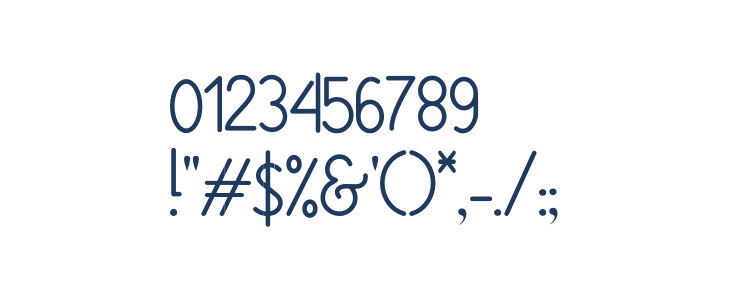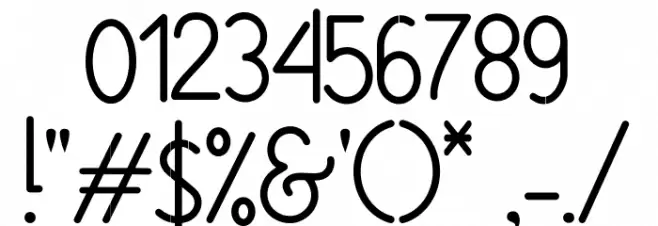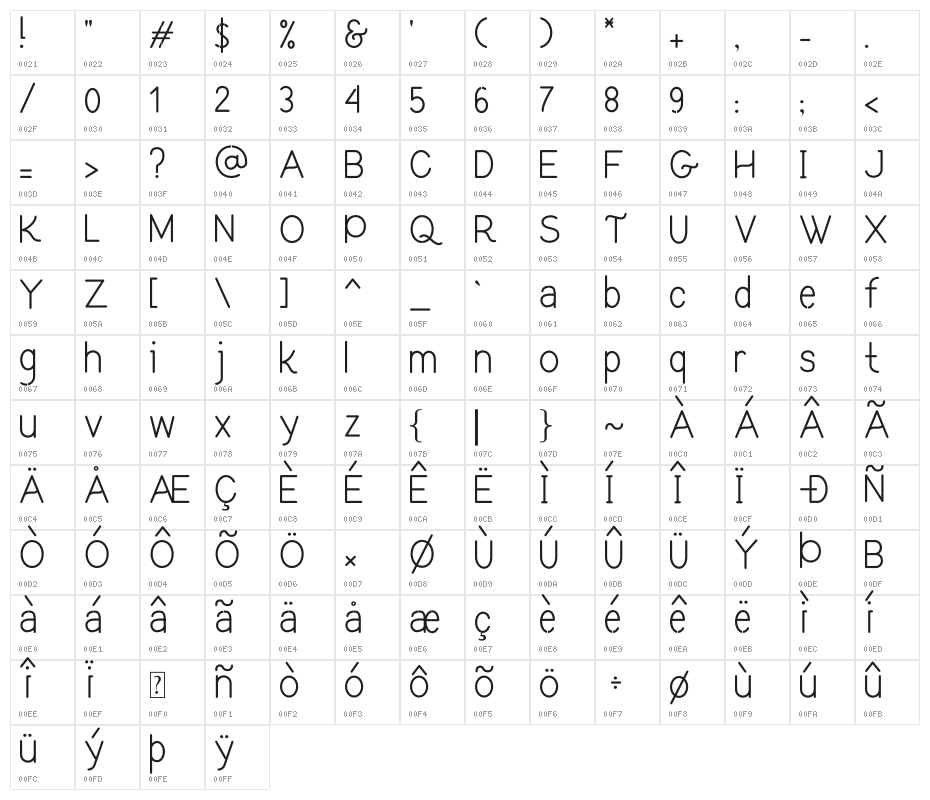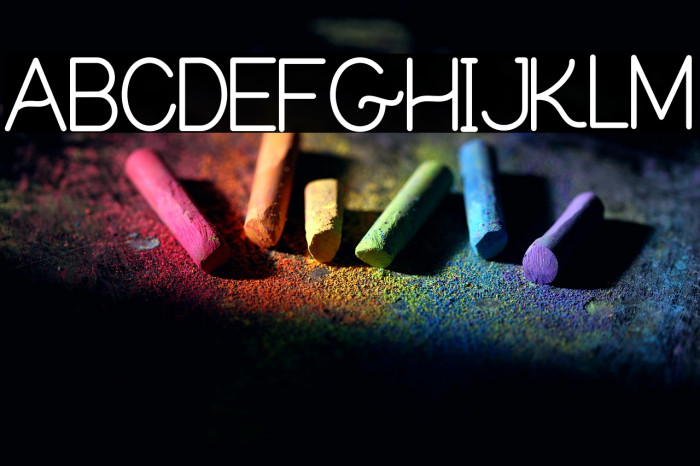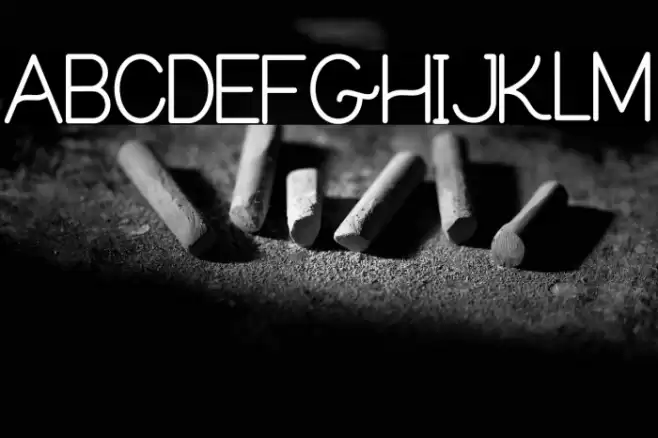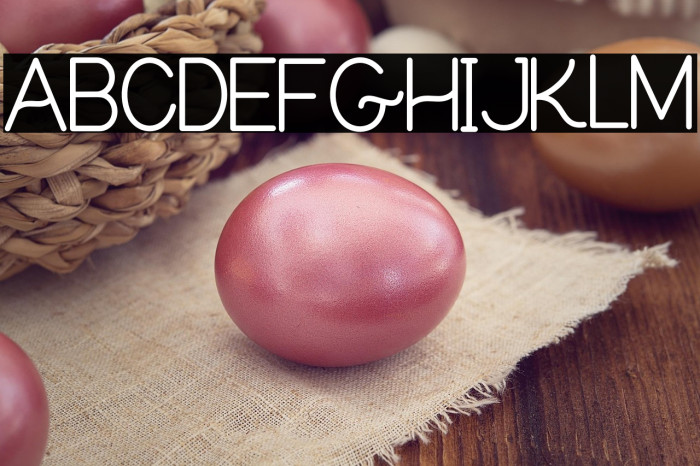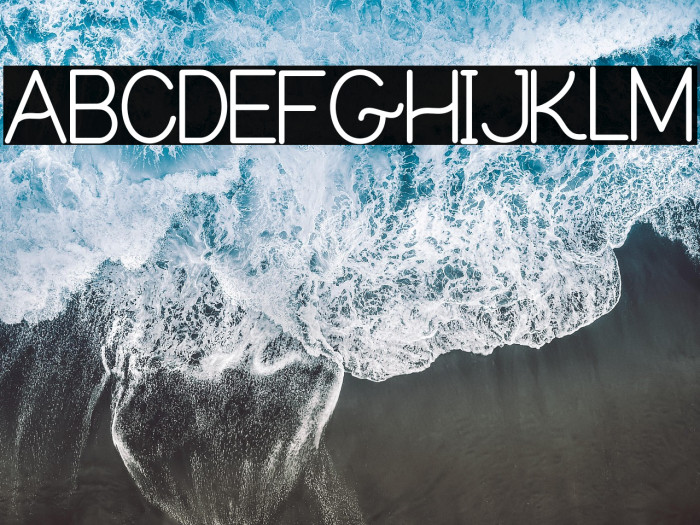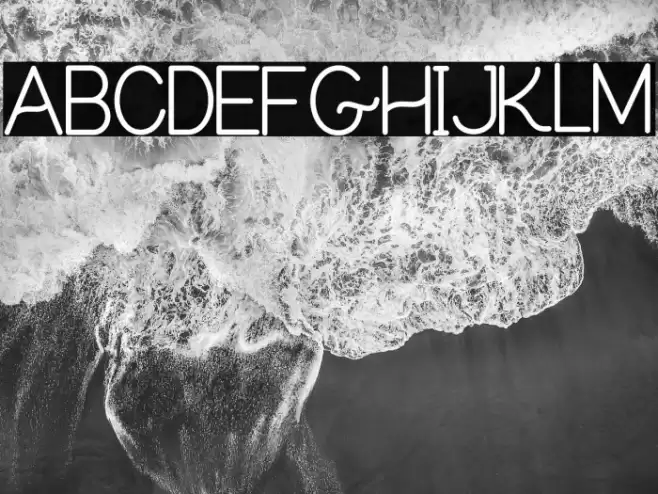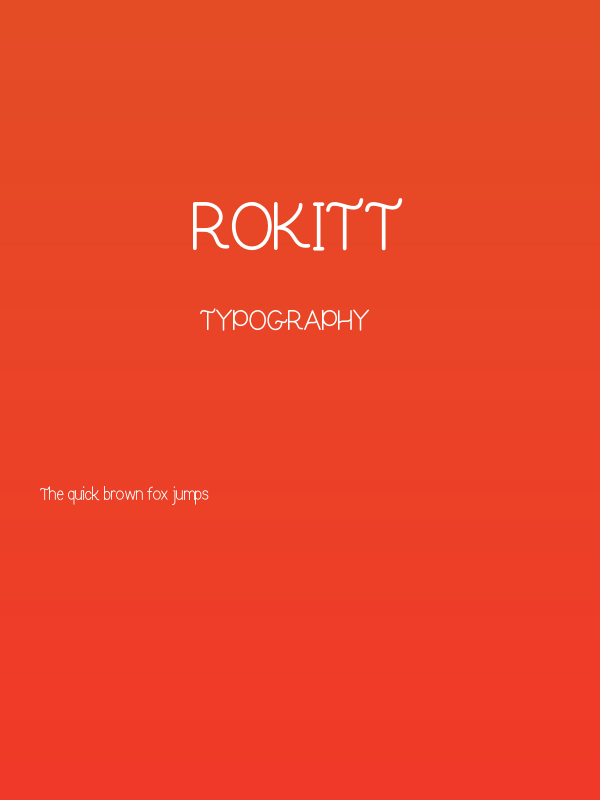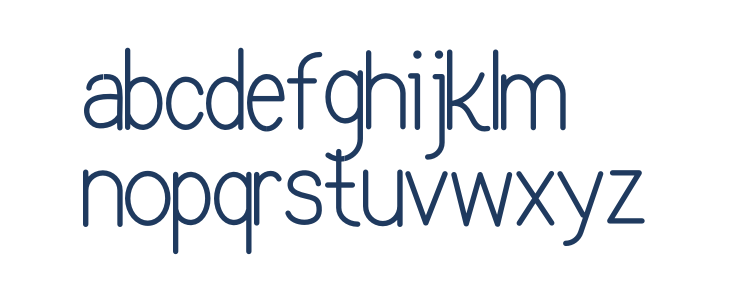
Rokitt Font
Rokitt Description
This font features a clean, geometric design with rounded edges, giving it a modern and approachable appearance. The uniform stroke width across all characters provides a consistent and balanced look, making it suitable for a variety of applications. Its simplicity and clarity ensure readability, while the rounded forms add a touch of friendliness and warmth. The numerals and special characters maintain the same design principles, ensuring cohesion throughout the typeface. This font is versatile, fitting well in both digital and print media, and can be used effectively in both large and small sizes.